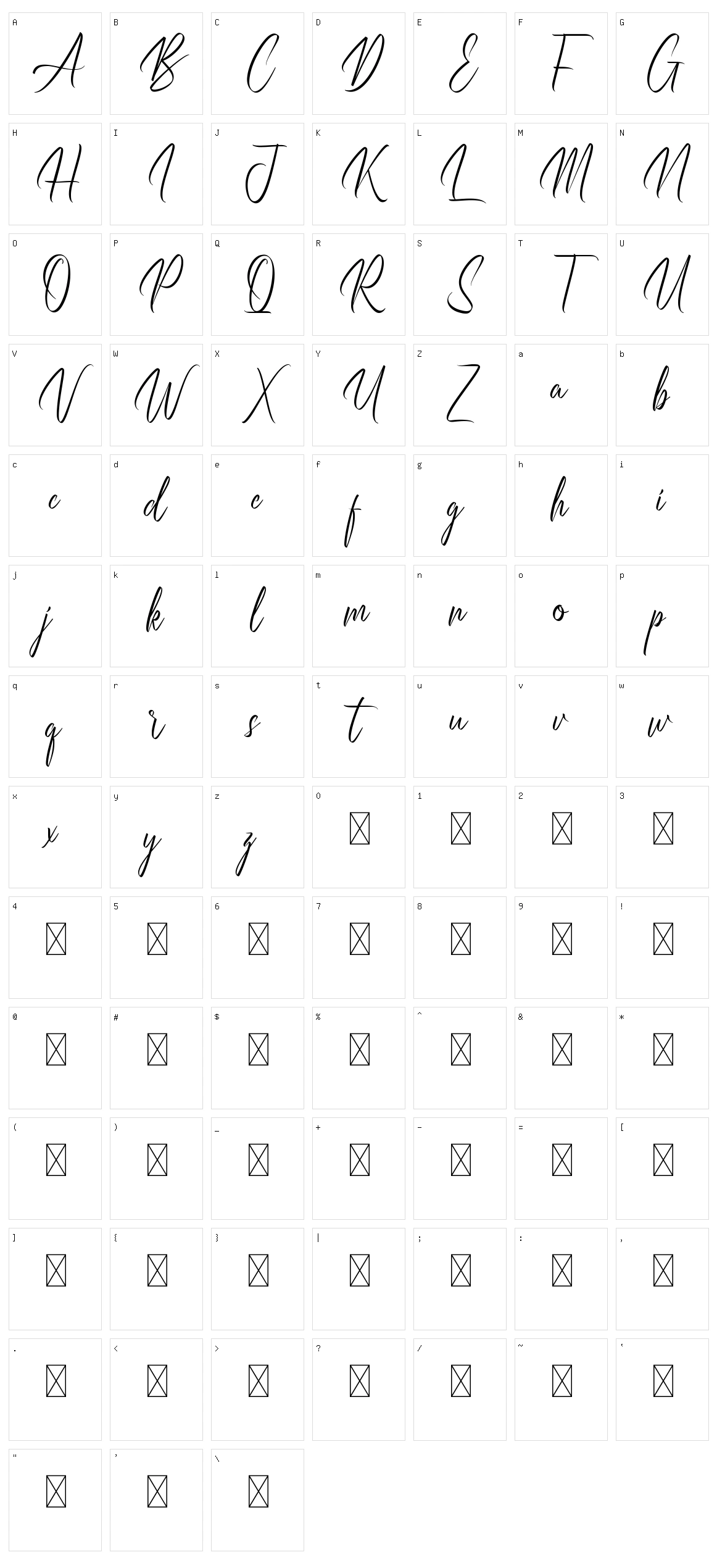
The free font Breakdays is carefully designed by RaisProject, showcasing a thoughtful balance of creativity and usability and falls under the Script font style. When you download the ZIP file, it contains only 61 KB of font files, making it lightweight and quick to download. Please review the license details below to understand permitted usage and distribution rights. If license information is not available, we recommend using this font for personal projects only or contacting the author directly for commercial usage permissions.